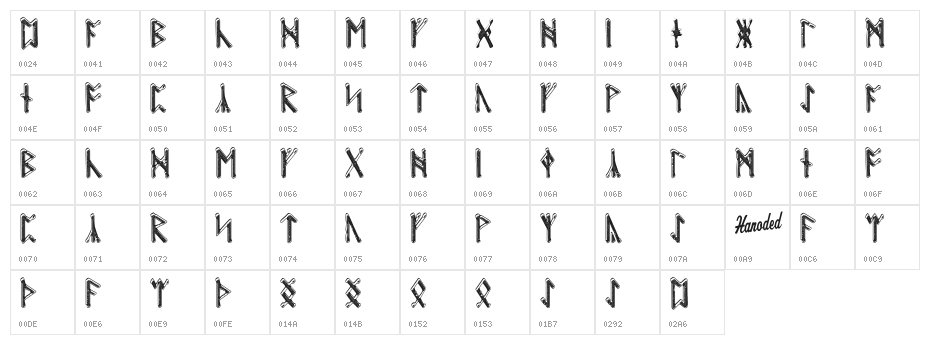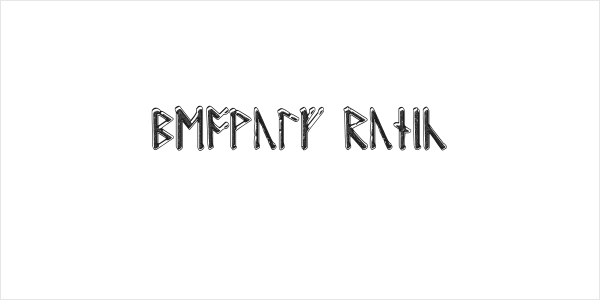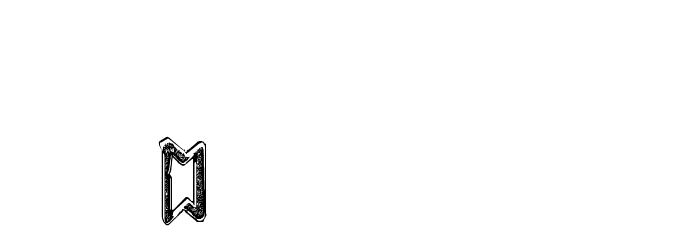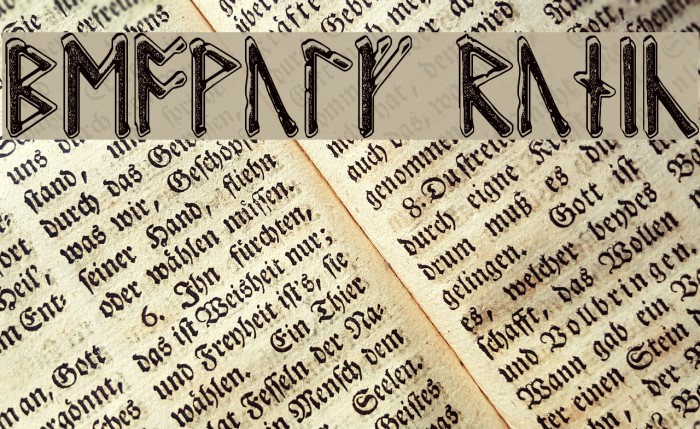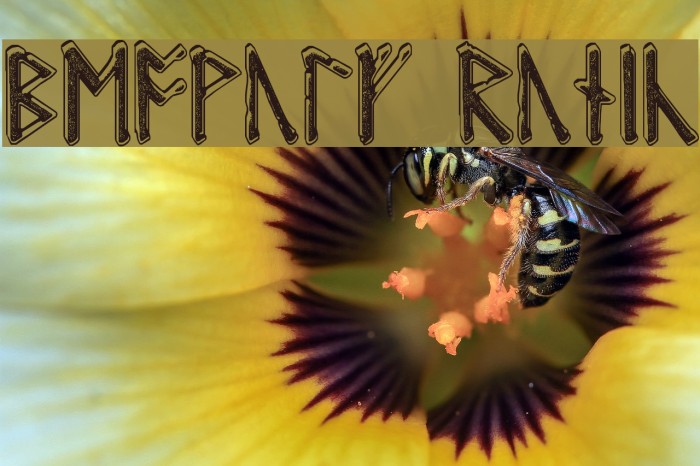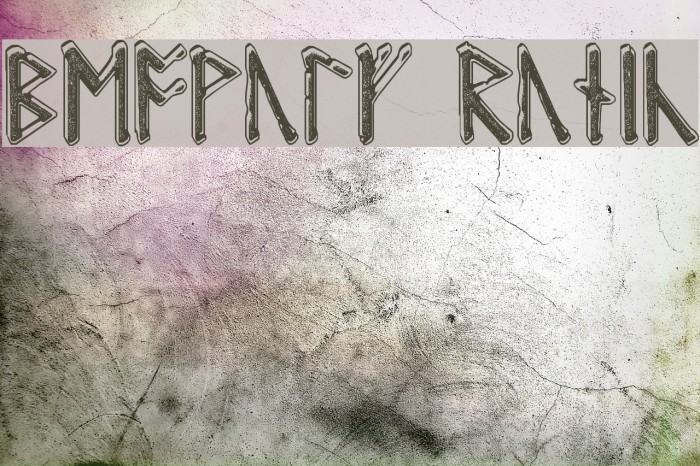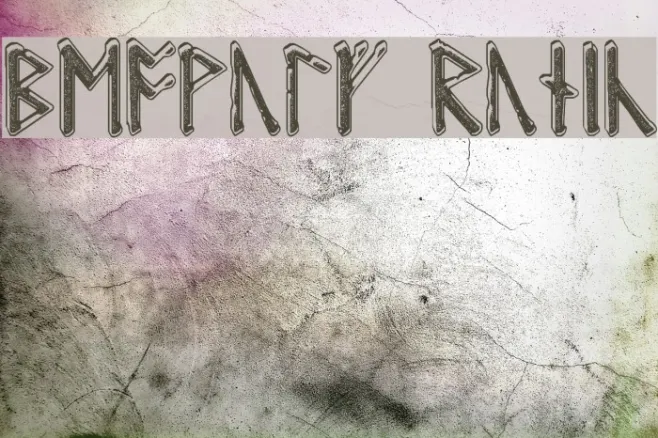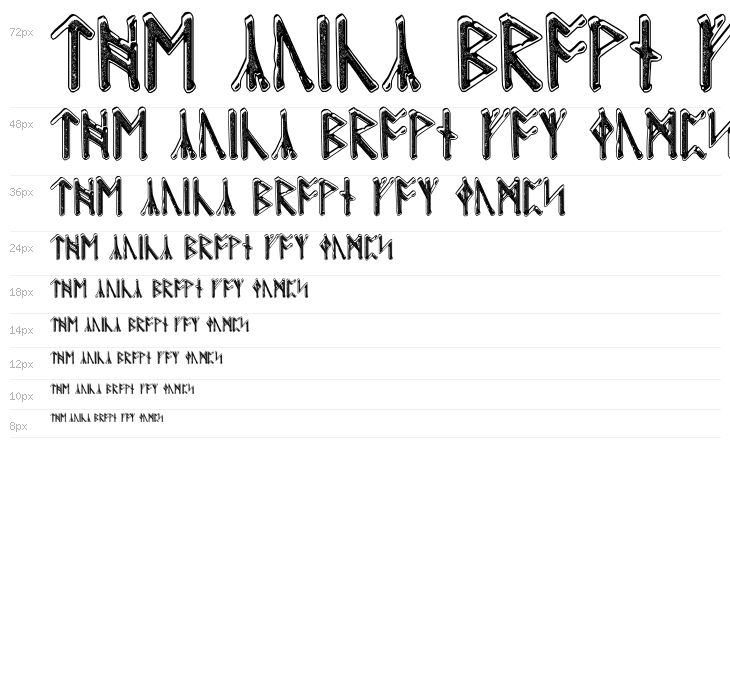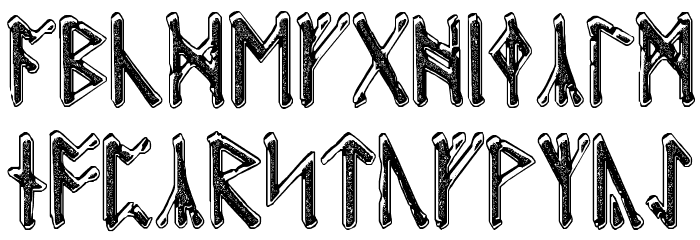
Beowulf Runic Font
Beowulf Runic Description
This font features a unique runic style reminiscent of ancient inscriptions, characterized by angular and geometric shapes. Each character is crafted with a distinct, textured appearance that mimics the look of carved stone or wood. The font exudes a historical and mystical aura, making it ideal for projects that require an ancient or fantasy theme. The characters are bold and striking, with a consistent thickness throughout, ensuring readability while maintaining an authentic runic aesthetic.
| Proposed Projects | Ideal for fantasy-themed designs, historical recreations, game titles, and book covers. |